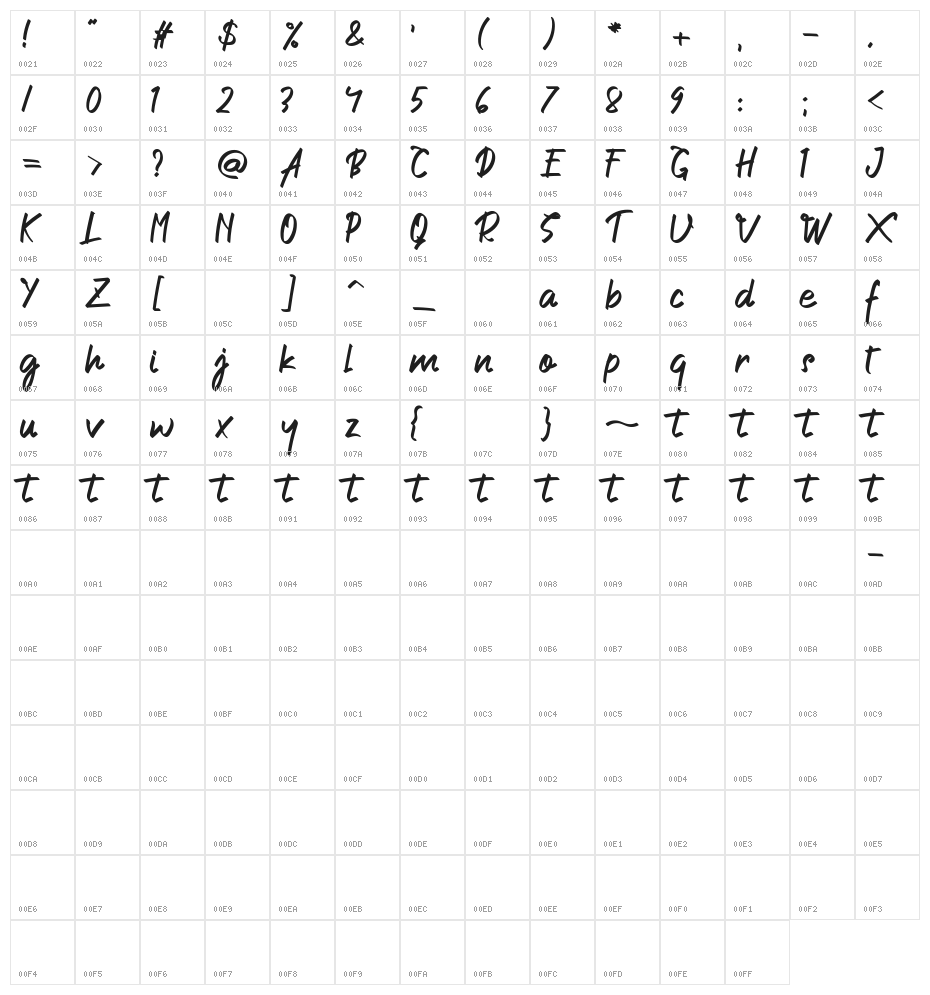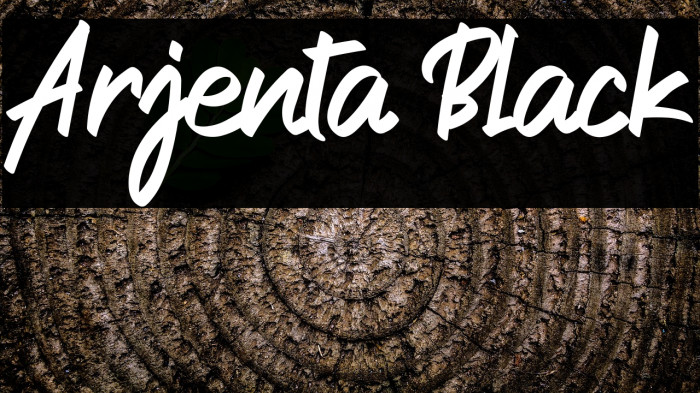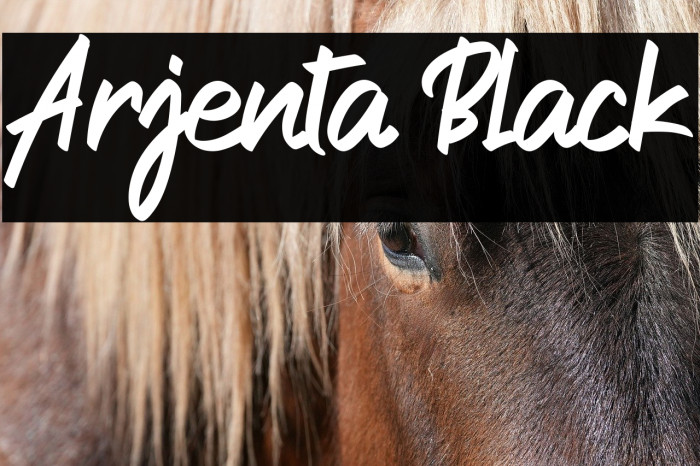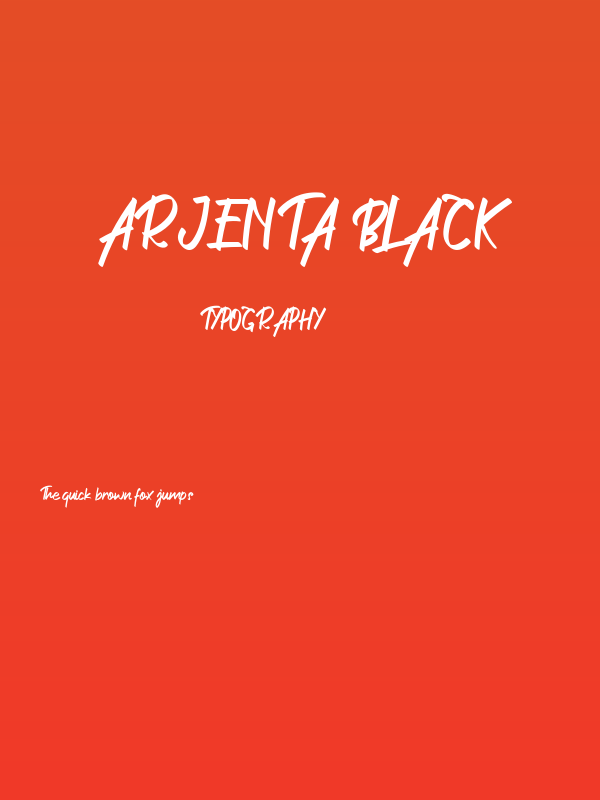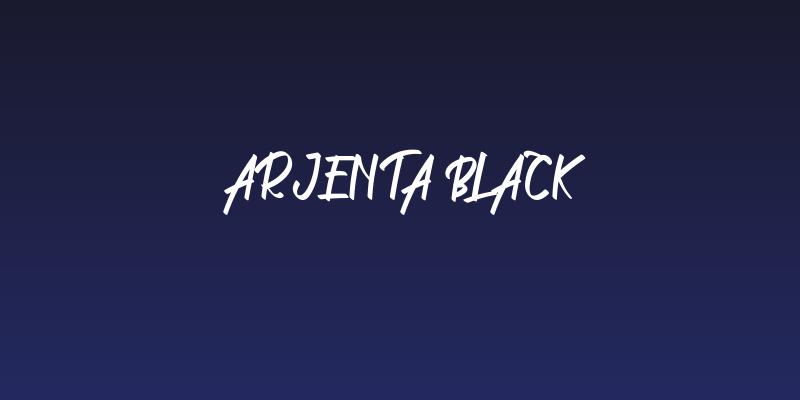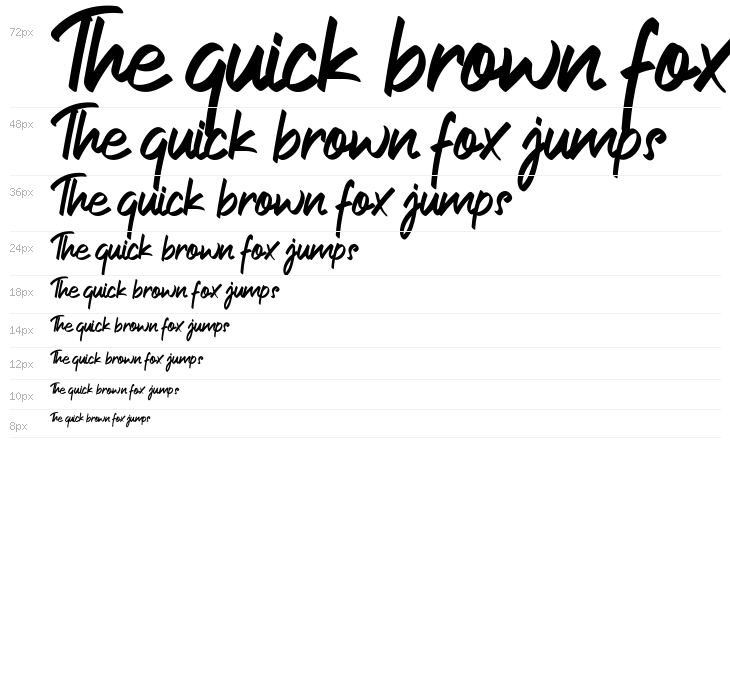
Arjenta Black Font
Arjenta Black Description
This font features a bold, handwritten style with a dynamic and energetic appearance. The uppercase letters are tall and slightly slanted, giving a sense of movement and flair. The lowercase letters maintain a consistent flow, with smooth curves and a casual, yet sophisticated look. Numbers and special characters are designed to match the overall aesthetic, with a playful and artistic touch. The strokes are thick and consistent, providing a strong visual impact while maintaining legibility.